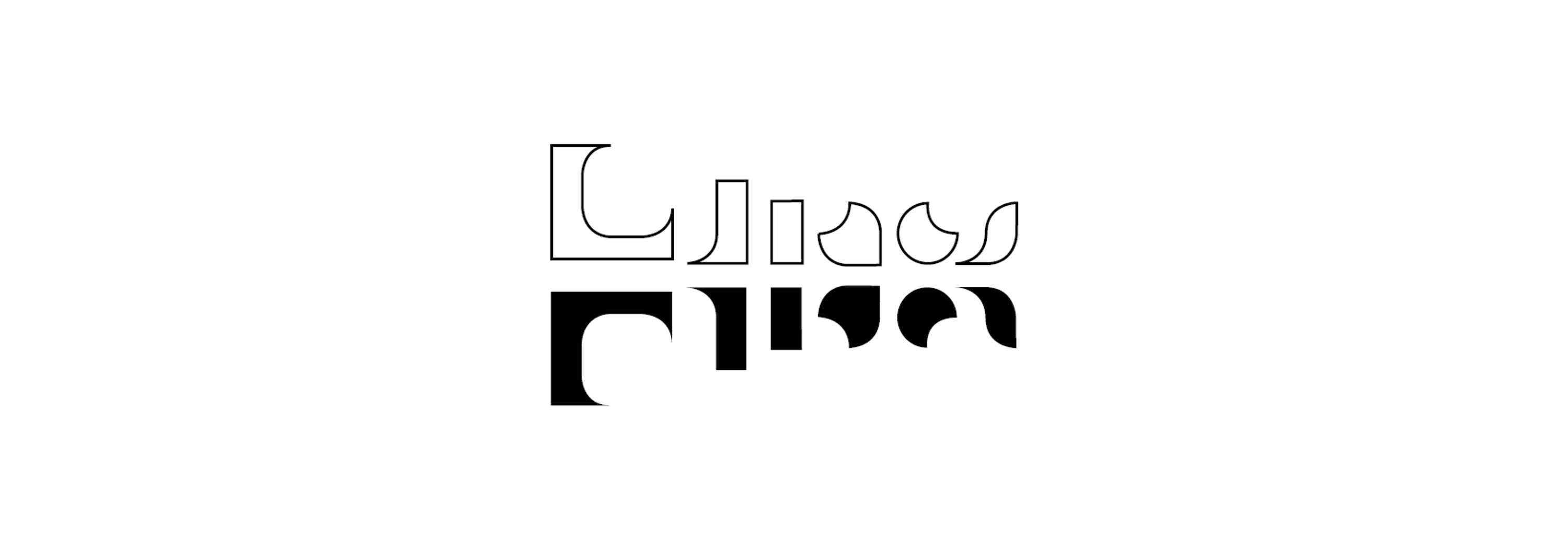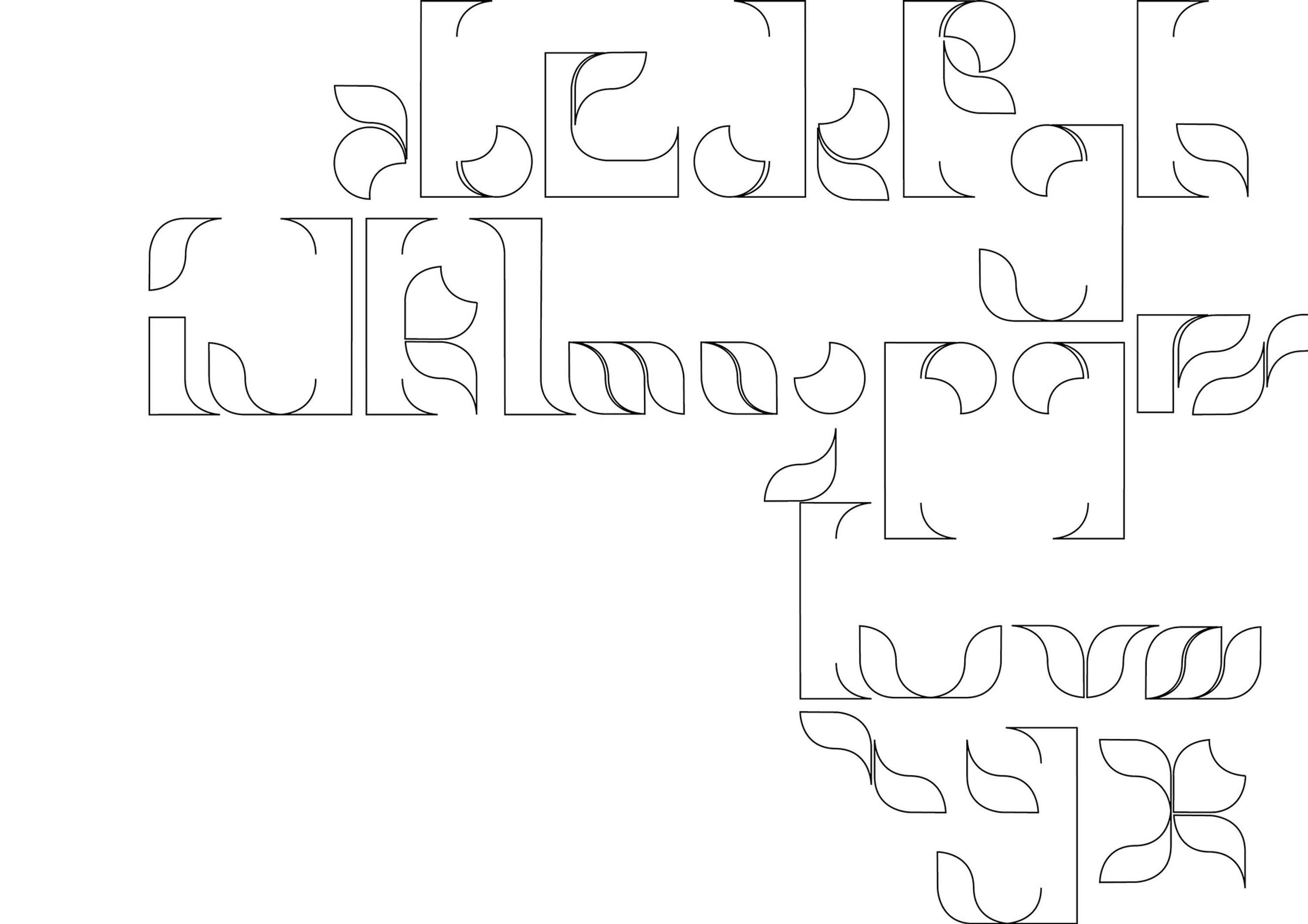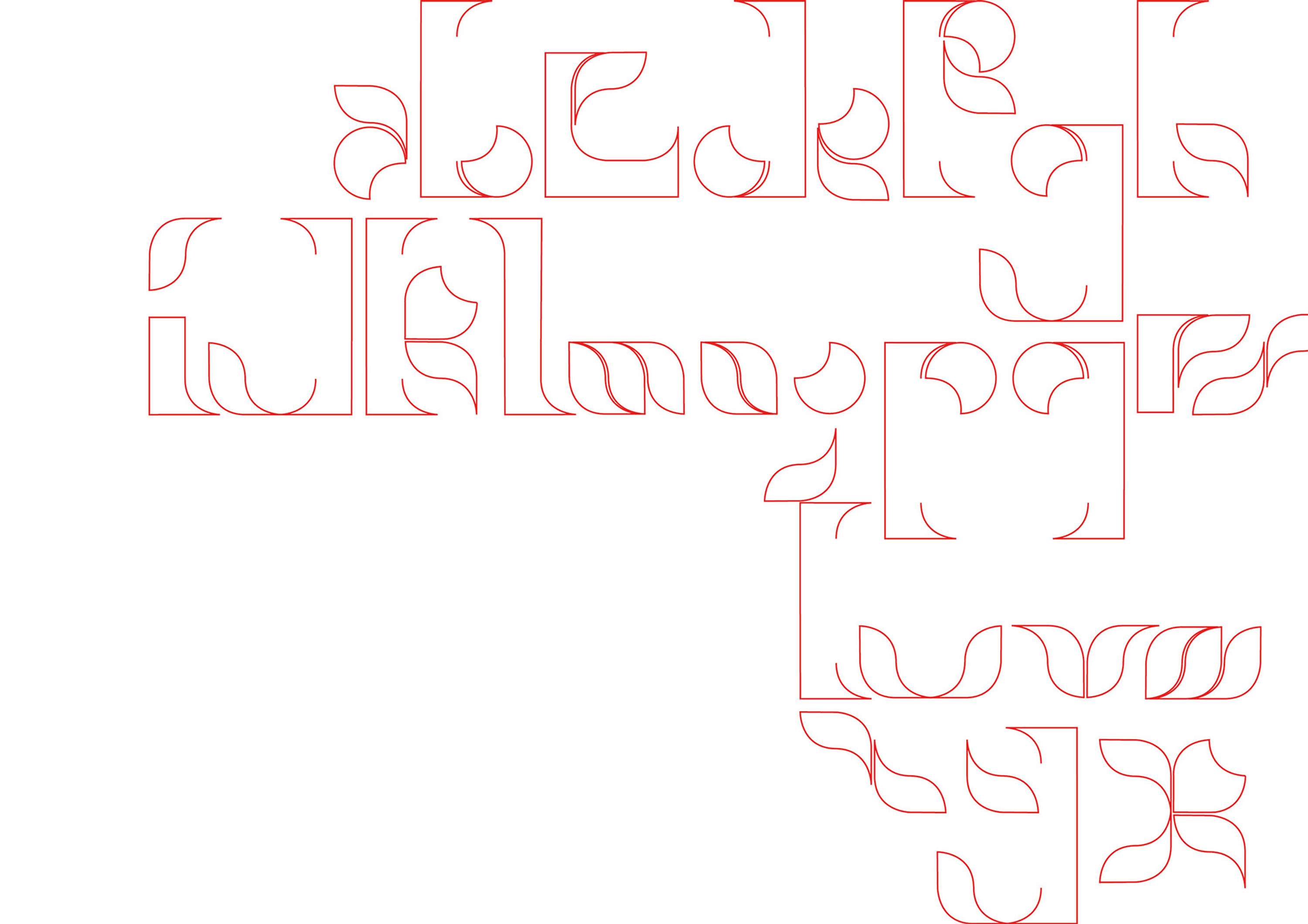
MODULAR TYPEFACE
inspired by Jan van Toorn. The dutch designer takes an interest in all forms of propaganda, manipulation and dissemination of information. He is also a theorist, observing: ‘In one way or the other, the public must remain in a position where they can measure the motives of the producer and mediator that lie behind the product, against their own experience of the world.’ CHALLENGE: creating a provocative modular typeface following the designer beliefs and values without falling in his design visual style.
MODULAR TYPEFACE by Chiara Romualdi